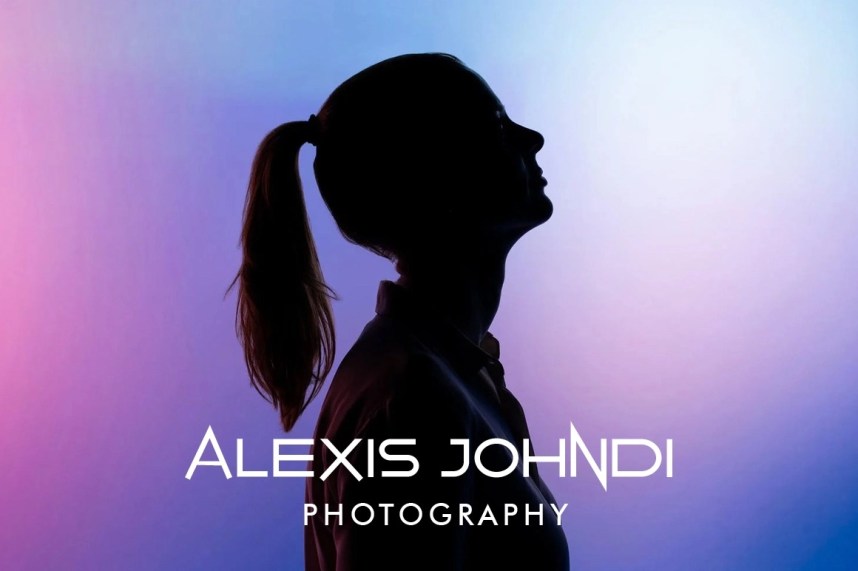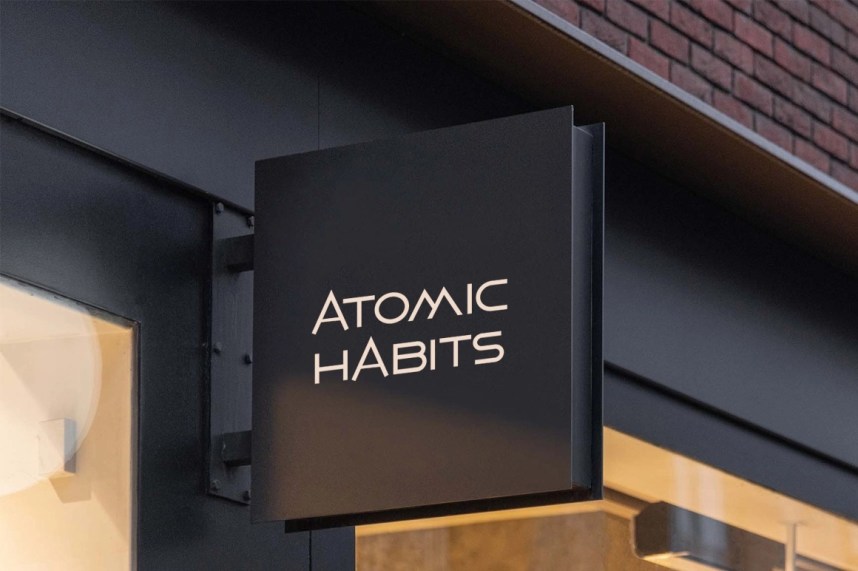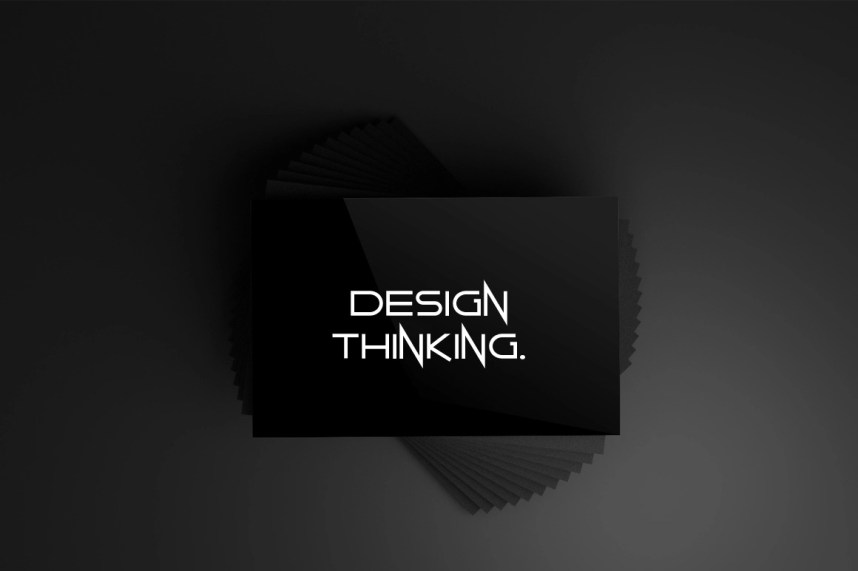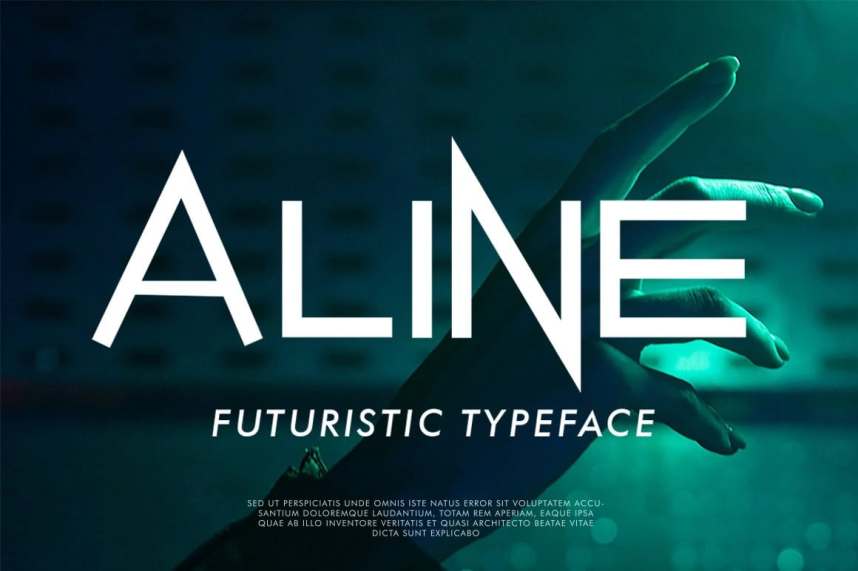
Aline Display Typeface
It’s a modern, elegant and futuristic display font created by Vultype Co with a unique uppercase that will make your design looks futuristic and modern. You can use this font for any purpose, especially to make logotypes. This font is PUA encoded which means you can access all of the glyphs and swashes with ease!